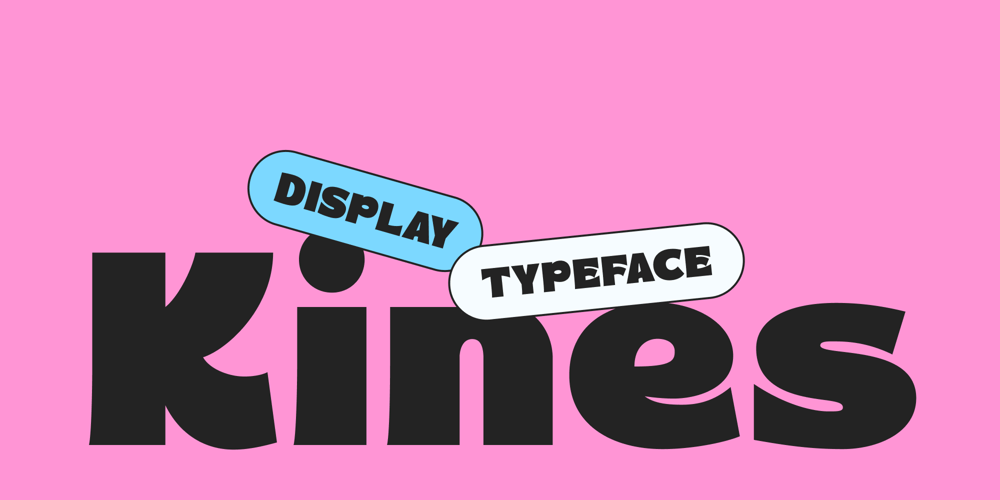
Kines Font Family was designed by Moch Fitrah Hidayat and published by Fitrah Type. Kines contains 3 styles and family package options. Kines is the newest typeface sans display. Character Inspired By Retro and Bold Typeface. The entire typography has been designed to work on large sizes. This font is good to use on posters, zines, stickers, and t-shirts.We highly recommend using a program that supports OpenType features and Glyphs panels such as Adobe Illustrator, Adobe Photoshop CC, Adobe InDesign, or CorelDraw, so you can see and access all Glyph variations.